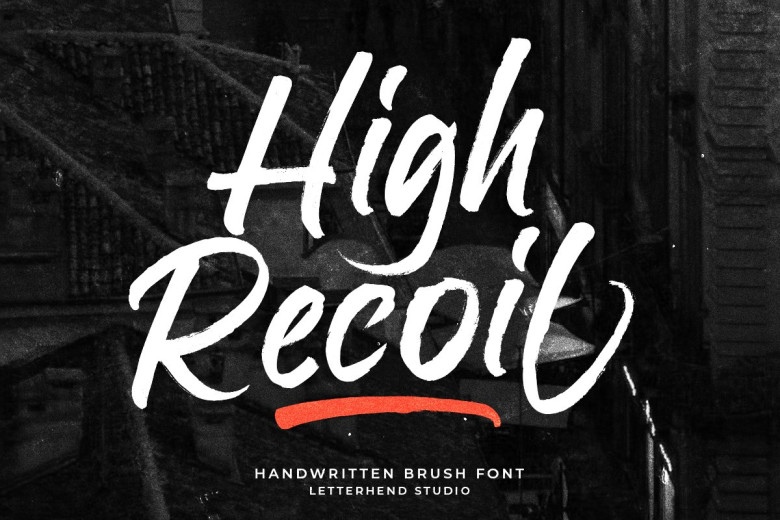
High Recoil Font
High Recoil is an organic brush script font with rough handwriting characteristics and organic texturing, ideal for logo and other formal formats such as labels and invitations as well as magazines, logos, books wedding, greeting cards, packaging fashion, makeup books stationery, novel, labels advertisements or any other uses.
High Recoil Brush Script Font